All Good Things…
For those of us with old collections of PostScript Type 1 fonts, the days of the venerated font format are unfortunately drawing to a close. The evidence has been on full display across the Internet for the last two decades.
The Type 1 format was introduced by Adobe in the 1980s. In the early nineties, rather than pay Adobe royalties for using PostScript fonts, Apple developed the TrueType font specification and licensed it to Microsoft.
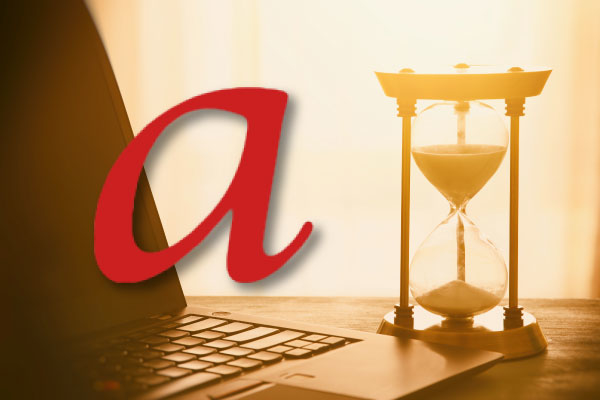
TrueType had the advantage of placing all font data into one TTF file, simplifying font management and distribution. PostScript purists argued that the glyph outlines in Type 1 fonts were superior, but TrueType’s simplicity and backing propelled it into a dominant market position.
Not to be outdone, Adobe announced the OpenType font specification in 2000. It was able to contain TrueType or Type 1 font outlines, and its Unicode support made it easy for foundries to create modern fonts that include alternate characters and international character sets. Within the decade, 90% of Adobe’s font sales were OpenType fonts.
The Long Goodbye of PostScript Type 1
Despite all these large-scale moves by industry giants, the ultimate fate of PostScript Type 1 was being determined by new versions of application software and frameworks.
Microsoft stopped supporting Type 1 fonts in Office 2013 for Windows and Office 2016 for Mac. And its Windows Presentation Foundation application framework for building .NET applications doesn’t support Type 1 either. And Adobe, the inventor of PostScript, has announced that it will no longer support Type 1 fonts starting with Photoshop in Creative Cloud 2021, and other Adobe applications will follow. Throughout the software world, many other applications have been quietly dropping their support for Type 1 fonts.
Similarly, Type 1 fonts play no role in the ever-expanding world of mobile apps since neither iOS nor Android support the old format.
Modern Fonts Offer Significant Advantages
Moving on from Type 1 can be troubling for graphics and prepress professionals who still depend on legacy fonts for old projects, or who have decades-old PostScript font collections. But leaving an old friend does not have to be all doom and gloom; modern font formats offer significant advantages.
Type 1 fonts limit active characters per font to 256, and many of these slots are occupied by characters that are non-typographical, such as delete and backspace. While this low character count might be adequate for western languages, Asian languages can require thousands of characters. In short, PostScript does not travel well in the modern, worldwide market.
Modern formats such as OpenType and TrueType support Unicode, a standard that provide a unique number for every character available – up to almost 150,000 of them. This allows expanded alphabets, special characters, glyph positioning, extended ligatures and special characters with room to expand for a long time to come.
The flexibility offered by modern formats translates to fewer confusing variants of font files since there’s room to allow fonts to grow and mature as requirements and standards change over time.
How FontAgent Handles Type 1 Fonts
FontAgent® continues to support import and activation of PostScript fonts. FontAgent Mac displays WYSIWYG previews and allows you to use them in applications that still support PostScript fonts, with some caveats. For example, in macOS 11 Big Sur, PostScript Type 1 fonts activated in FontAgent appear fine in most apps, but don’t in TextEdit and a few others. To get around that display problem for now, you can drag the Type 1 fonts into the ~/Library/Fonts folder but that workaround could disappear in the near future as well.
Fonts imported and activated in FontAgent Windows appear in applications that support PostScript fonts. Since it is a native .NET app, it does not offer a WYSIWYG view of the typeface. If you see unexpected results in Windows applications (especially .NET apps) – such as odd font menu behavior or display issues – they are most likely due to lack of Type 1 support in the app itself than a font management issue.
FontAgent Can Help You Move Forward
Because the days for PostScript fonts are limited, FontAgent offers tools to allow you to quickly locate your PostScript fonts and begin to plan for their replacement. In the FontAgent Table View shown below, Type 1 fonts are marked with a familiar red a icon. By clicking the column header in the table, you can sort all your fonts by file format, so all the Type 1 fonts appear together.
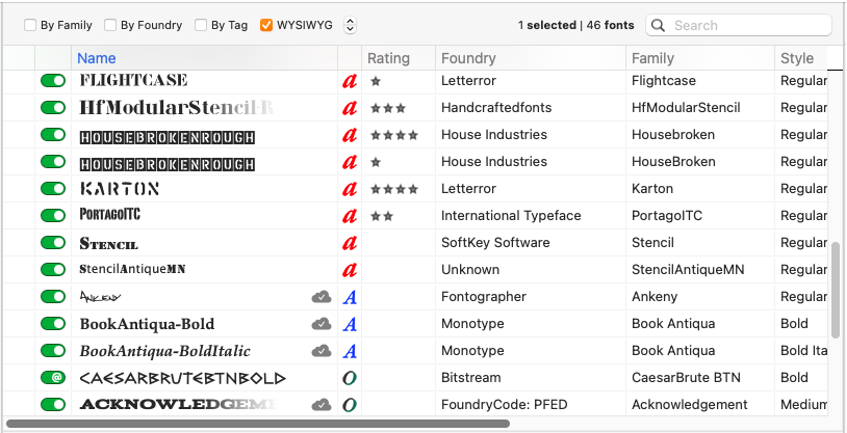
Alternatively, you can create a Smart Set that associates all of your Type 1 fonts in a logical set as show below. The set auto-updates as you add and delete Type 1 fonts from your font collection.
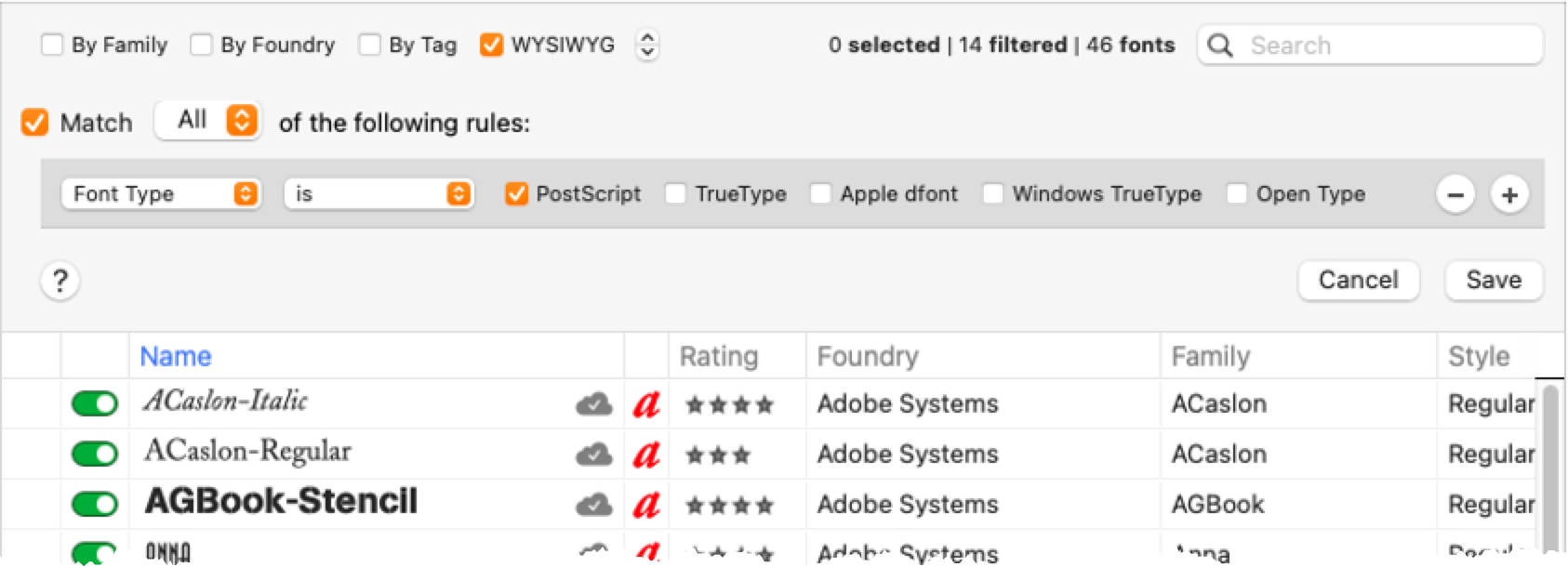
Once you have all your PostScript Type 1 fonts gathered together, you can create a PDF catalog of them using FontAgent’s Font Player, or you can export them to a folder on your computer’s file system.